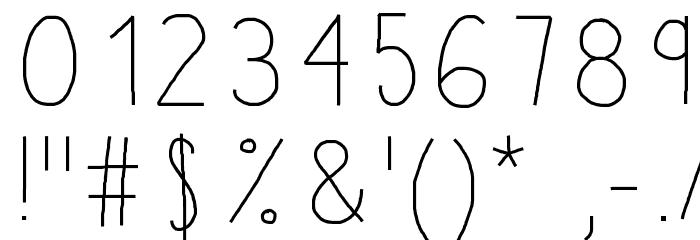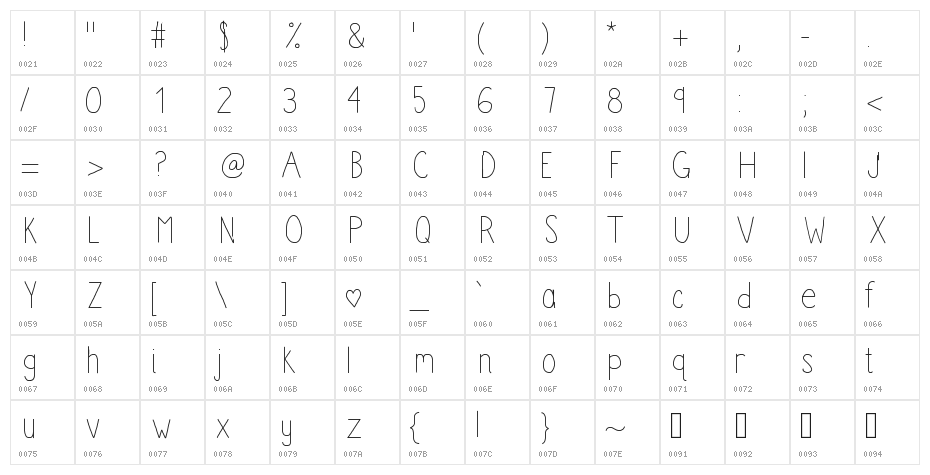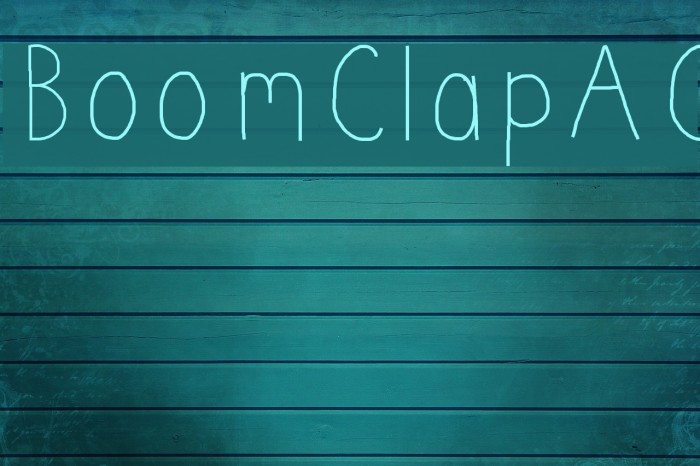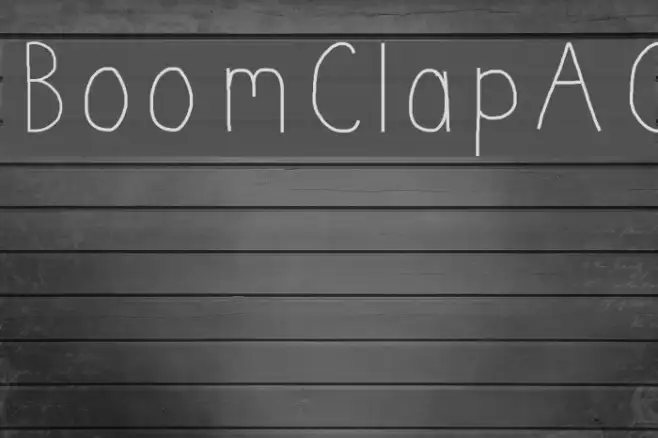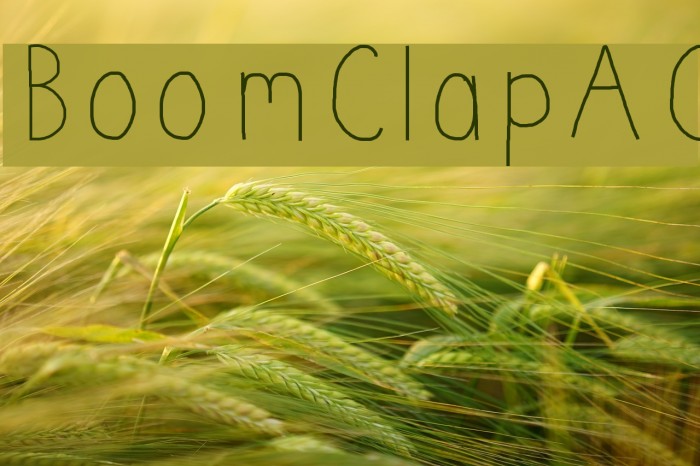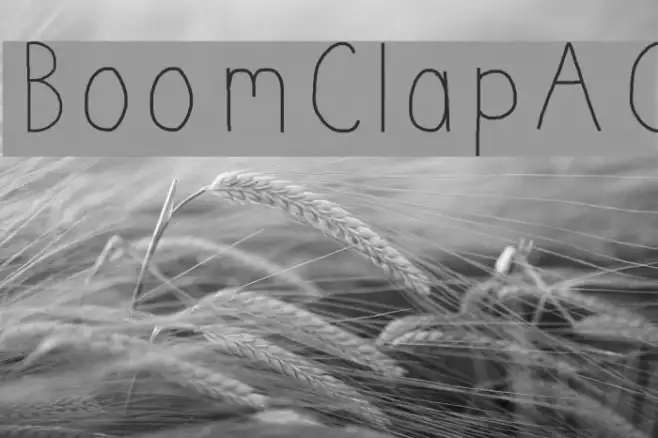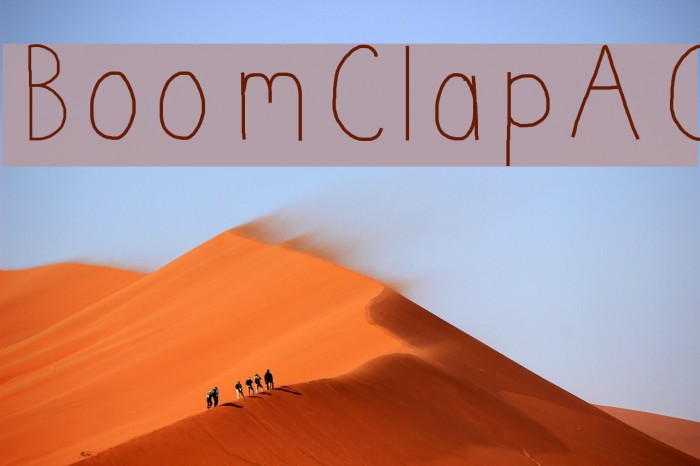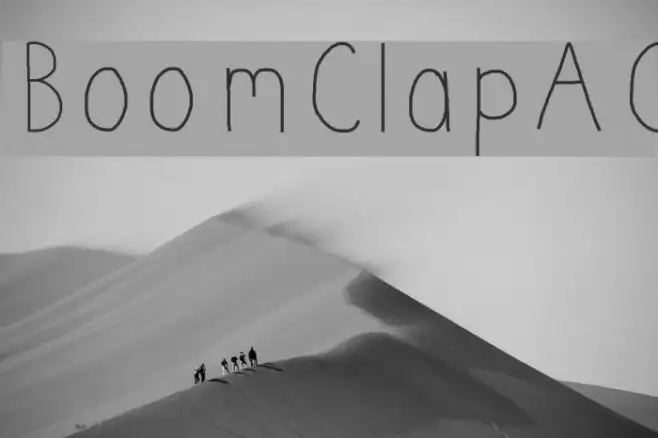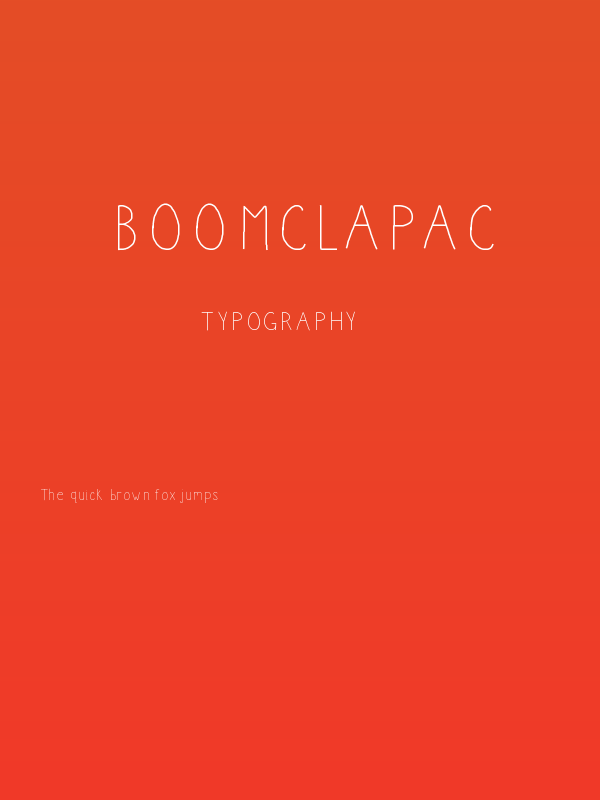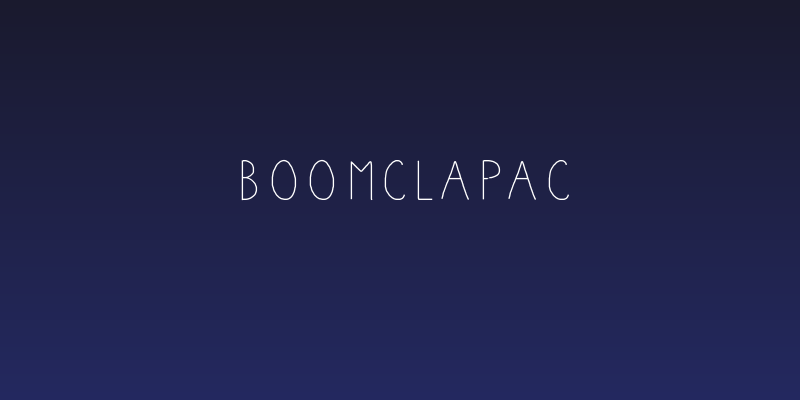
BoomClapAC Font
BoomClapAC Description
This font features a clean and minimalist design with a modern aesthetic. The characters are composed of thin, uniform lines that give it a light and airy feel. The uppercase and lowercase letters maintain a consistent height and width, creating a harmonious appearance. The numerals are straightforward and align well with the overall style. Special characters are distinct yet blend seamlessly with the rest of the font. Its simplicity and clarity make it highly legible, suitable for a variety of applications where a contemporary and unobtrusive look is desired.
| Proposed Projects | Ideal for modern branding, minimalist design projects, digital interfaces, and clean editorial layouts. |